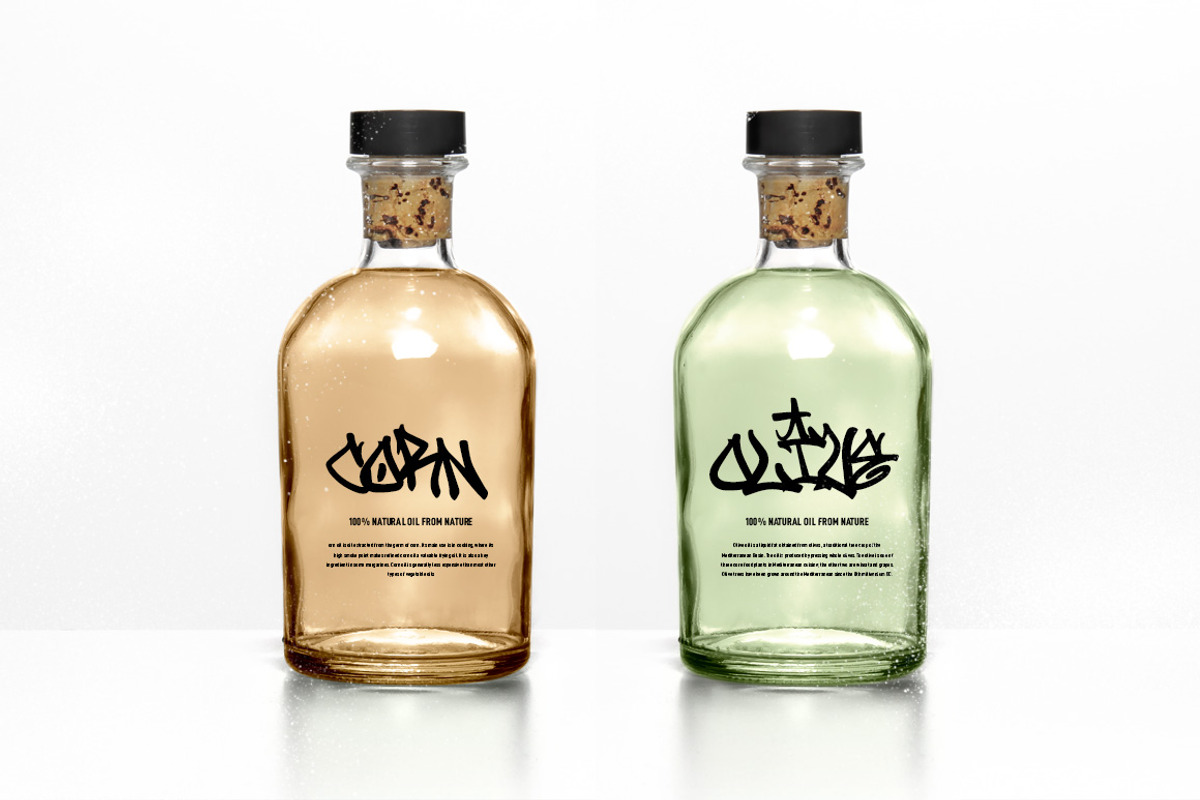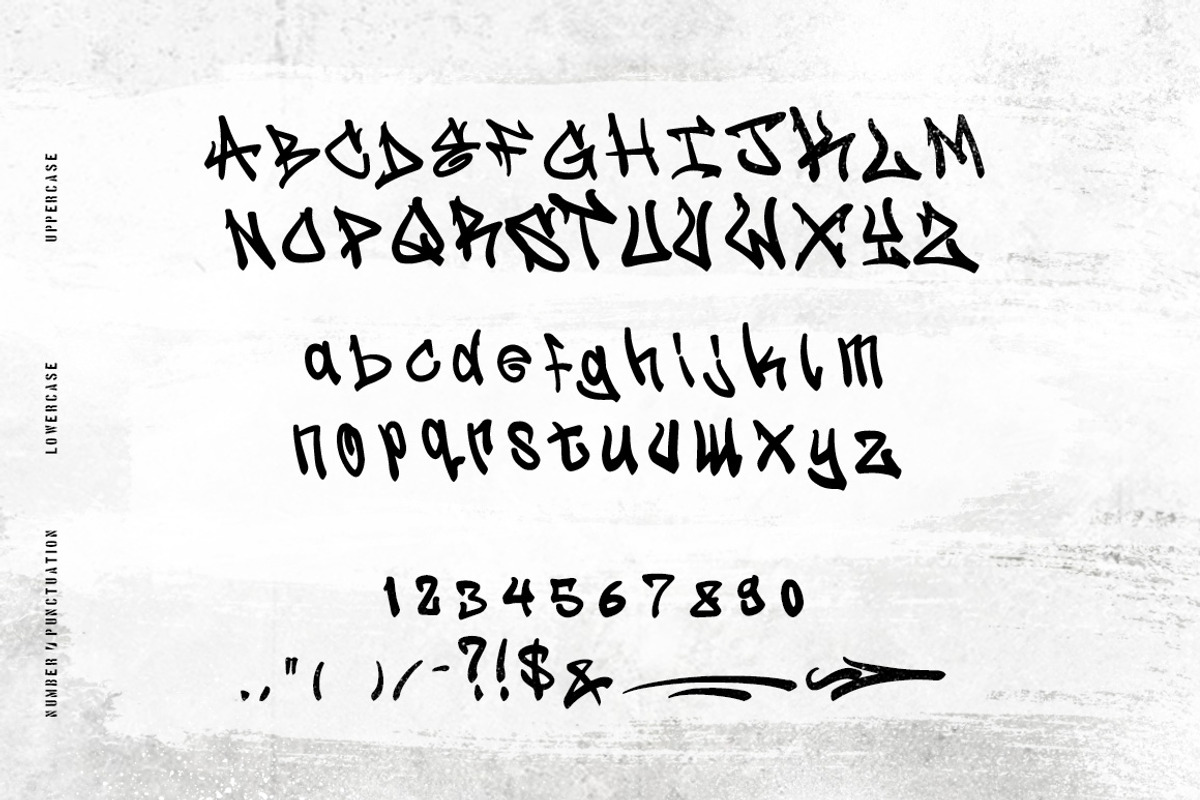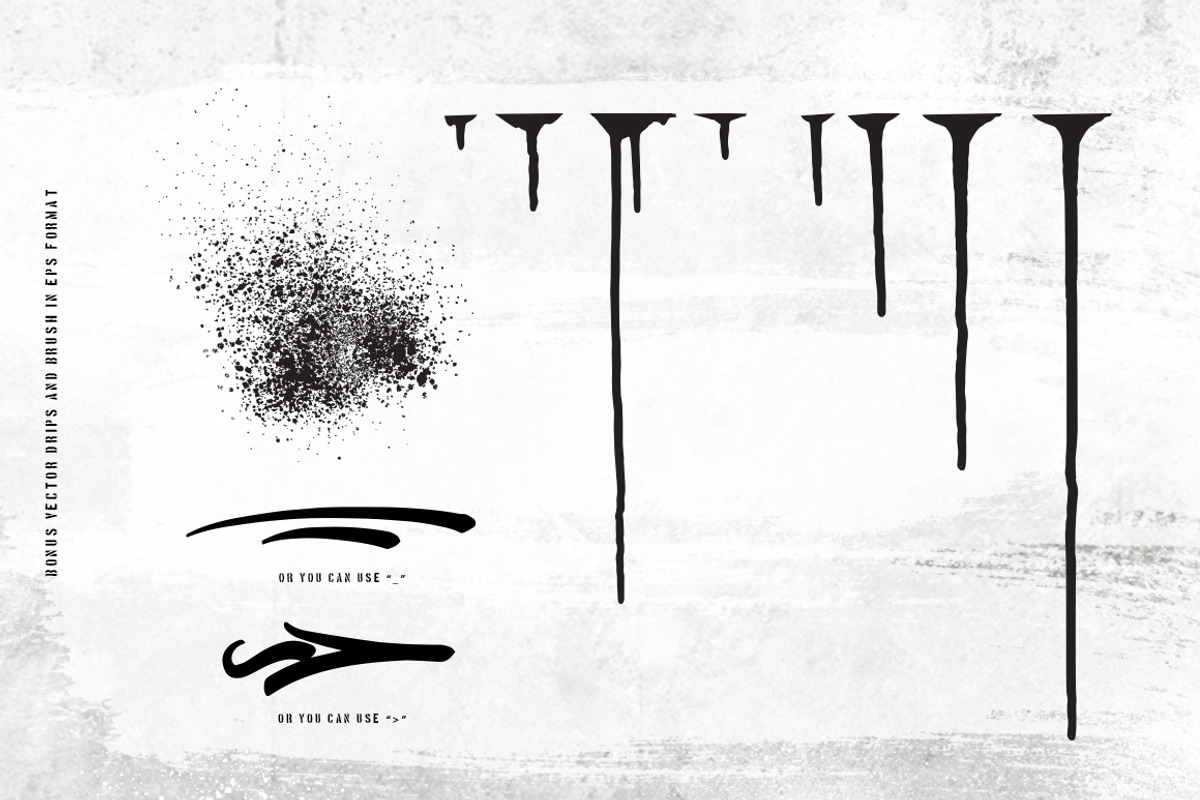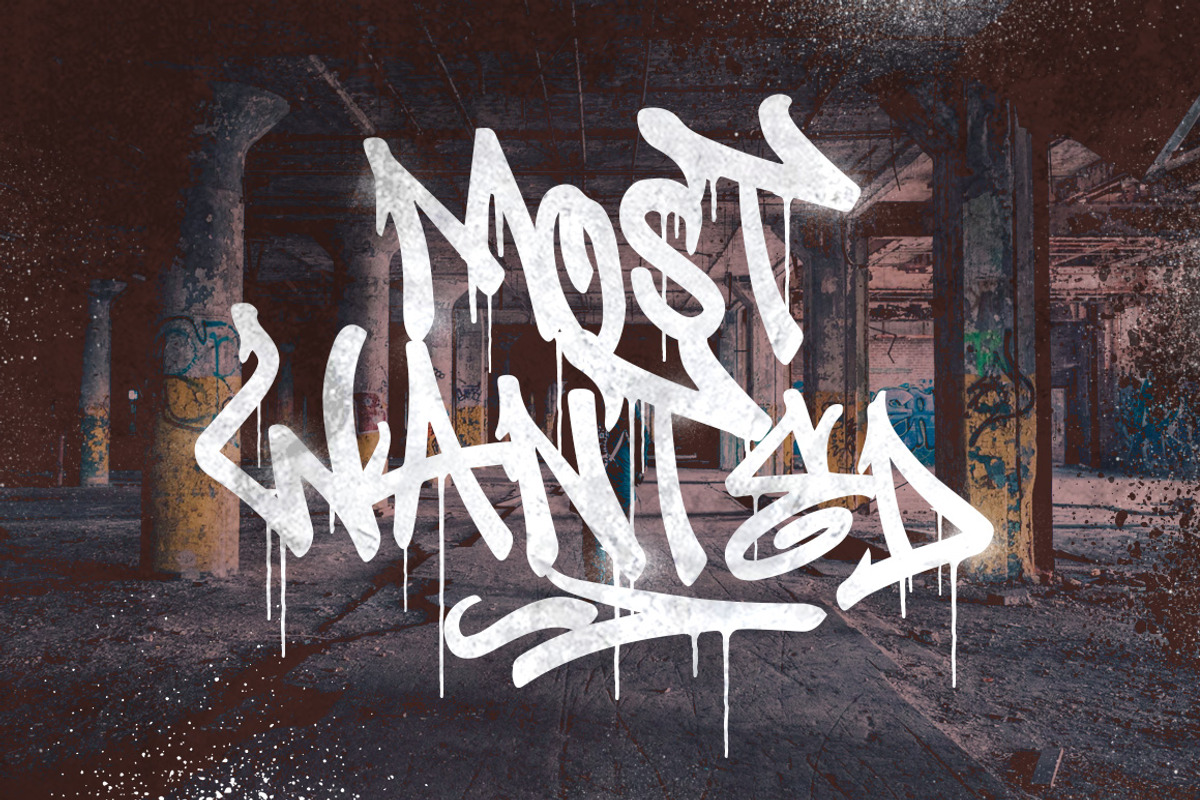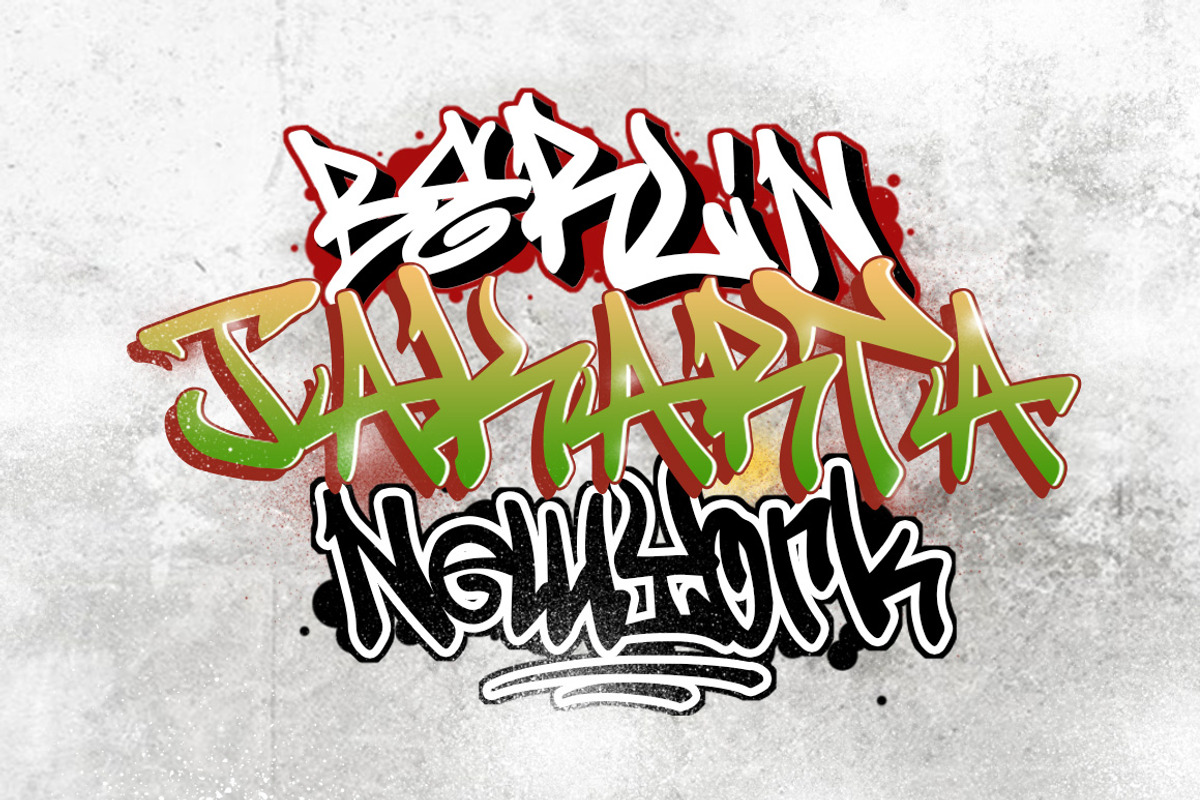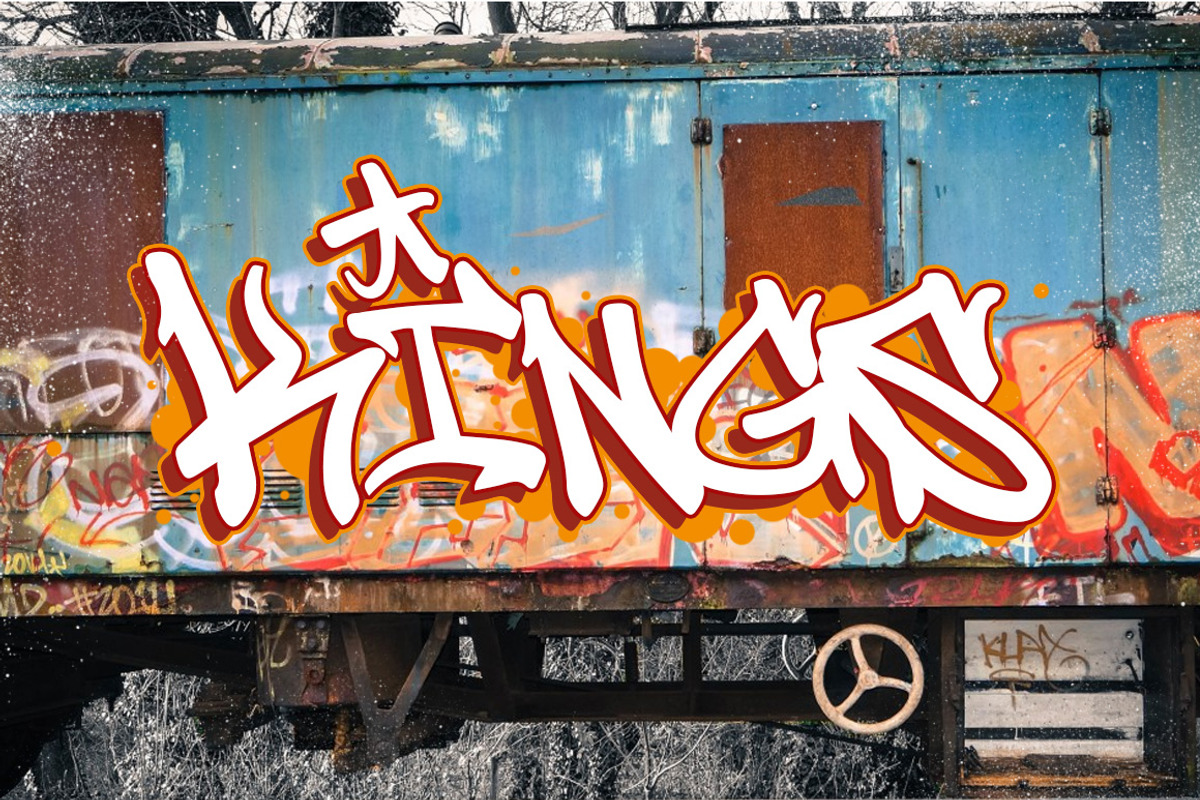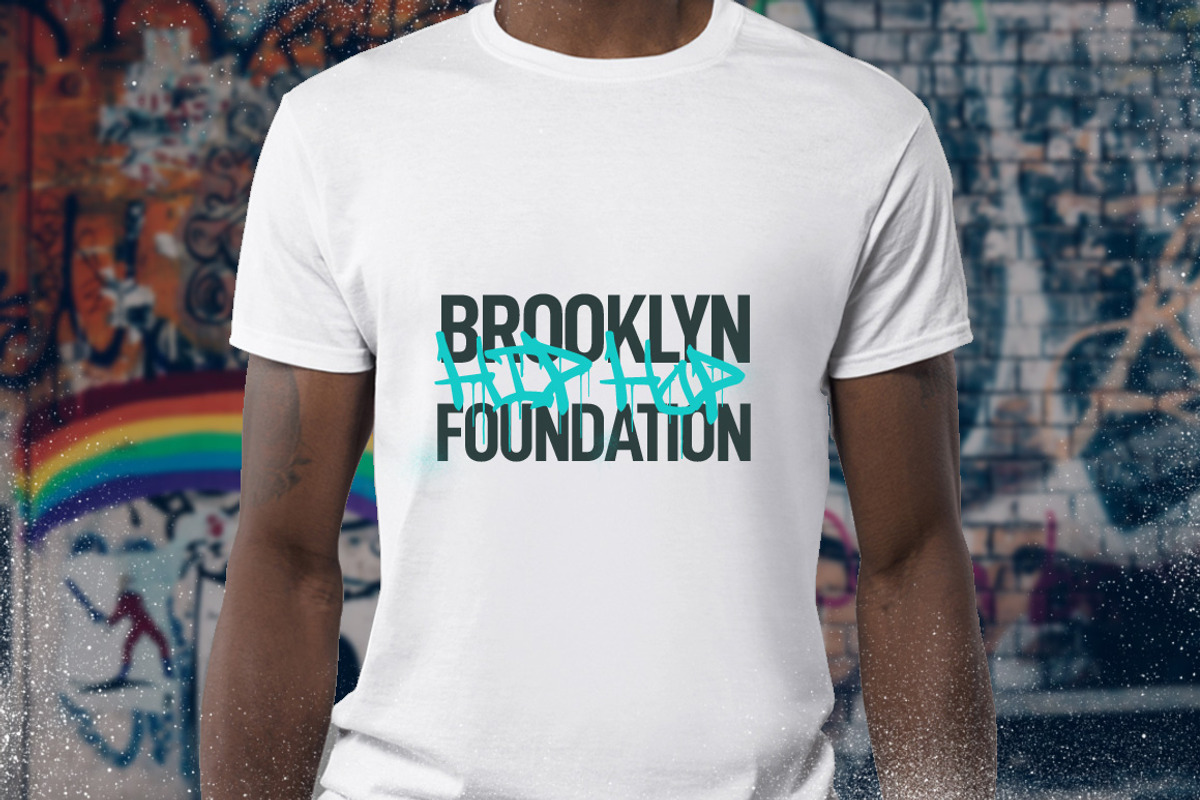
Graffiti Inspired Typeface | Syrup
Syrup is inspired by street art tag in big city wall, this font is featuring with indonesian finest graffiti artist aka "Nick23" you can visit his IG : @enaisikey23.
Created with graffiti style uppercase combine with regular lowercase make this font is unique, and easy applicable with any needs. Create more graffiti look with adding flat drop shadow, extrude, lighting and outline, you can see the sample.
For perfect result, i reccomend to adjust kerning and height manually again to create the best pair, because graffiti font is different with regular font,the pair is very complex.